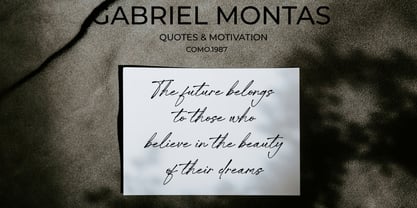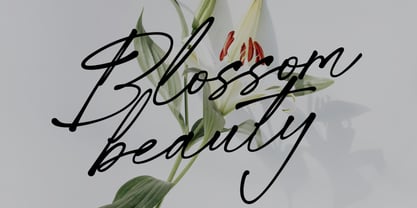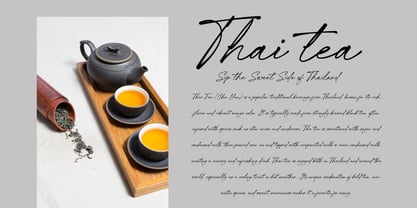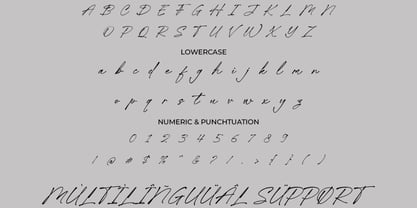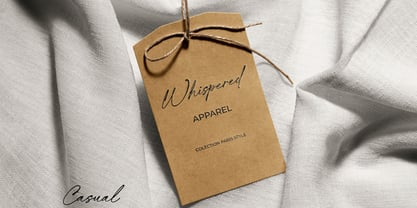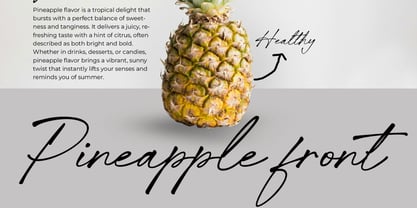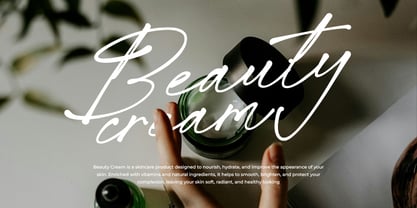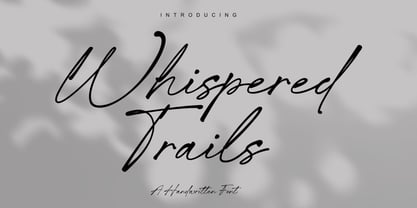
Whispered Trails
The Whispered Trails Font Family was designed by Aswangga Sadike and published by Salamahtype. Whispered Trails contains 1 styles. More about this family
Whispered Trails is a natural signature font that feels like a bold pen stroke full of personality and charm. Perfect for logos, branding, wedding invitations, quotes, and more, this font adds an authentic handwritten touch to your designs. Its flowing, confident lines create a stylish yet personal vibe, making every project feel warm and intentional. Whether you’re building a brand or crafting a heartfelt message, Whispered Trails brings a unique elegance that speaks from the heart.
Whispered Trails includes:
• Uppercase Lowercase
• Symbol and Punctuation
• Alternates and Ligatures
• Multilingual Support